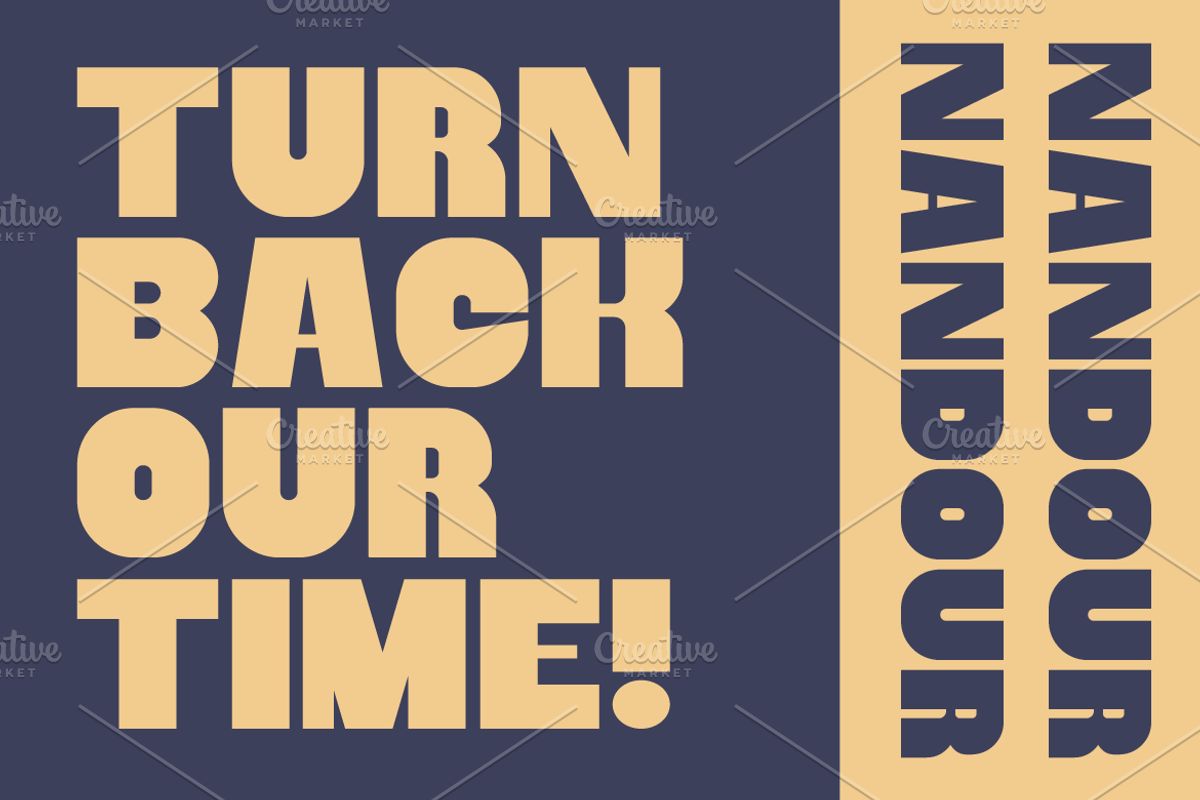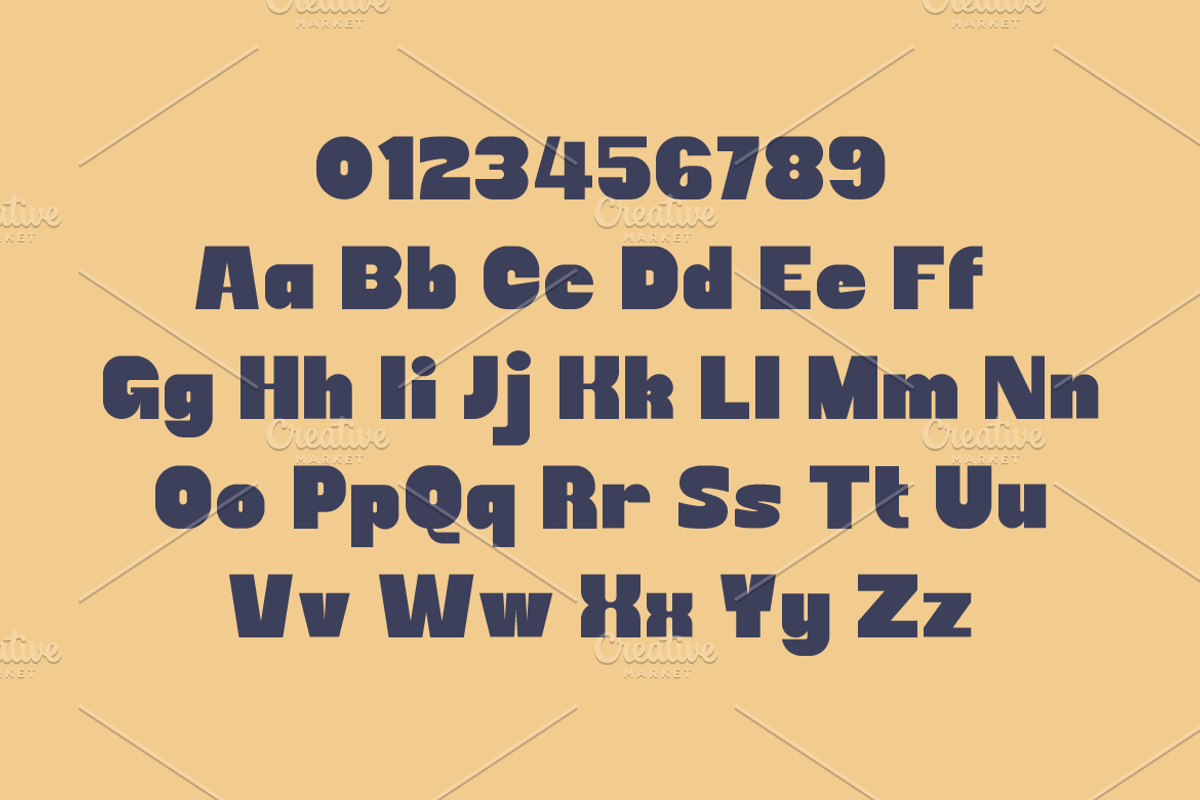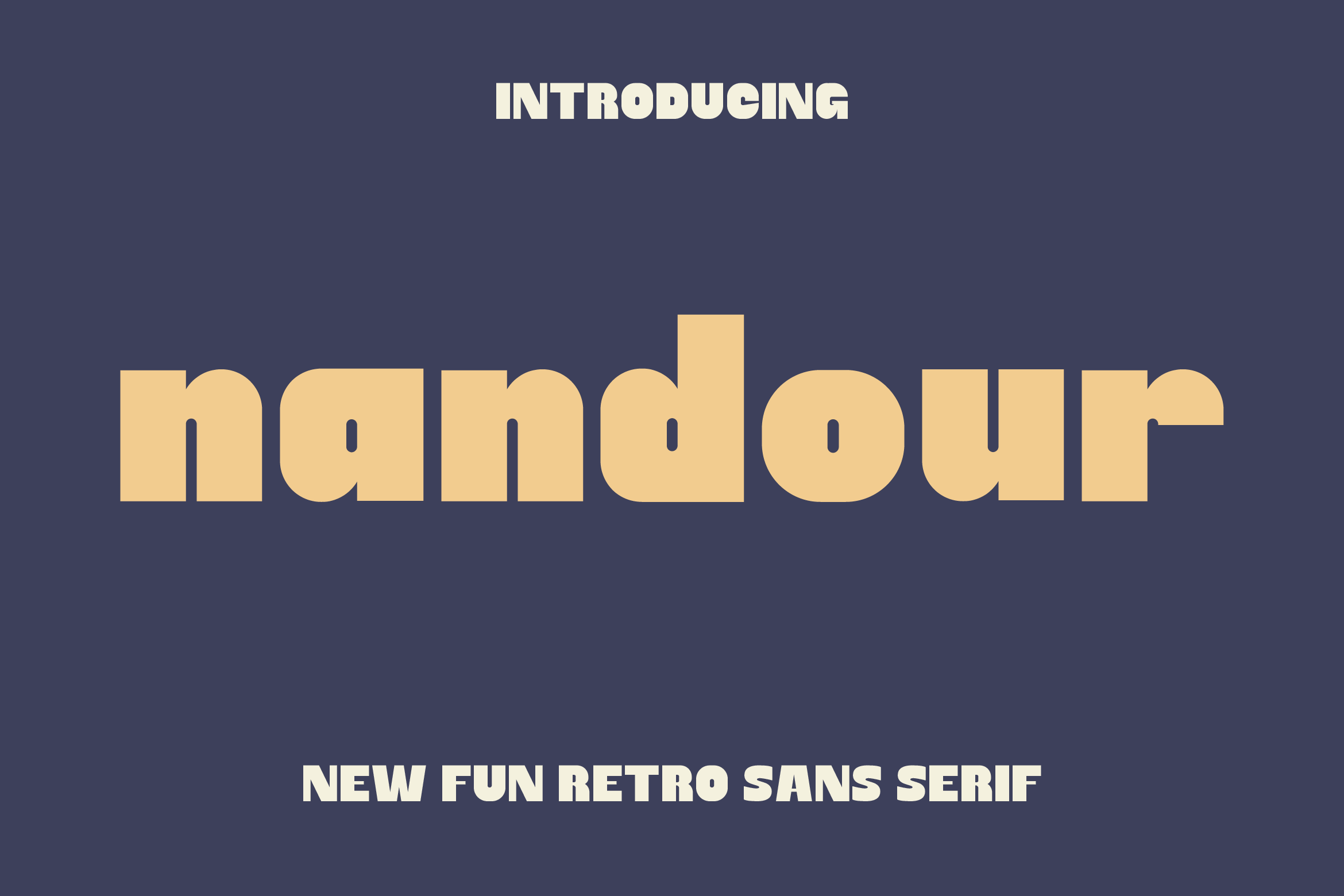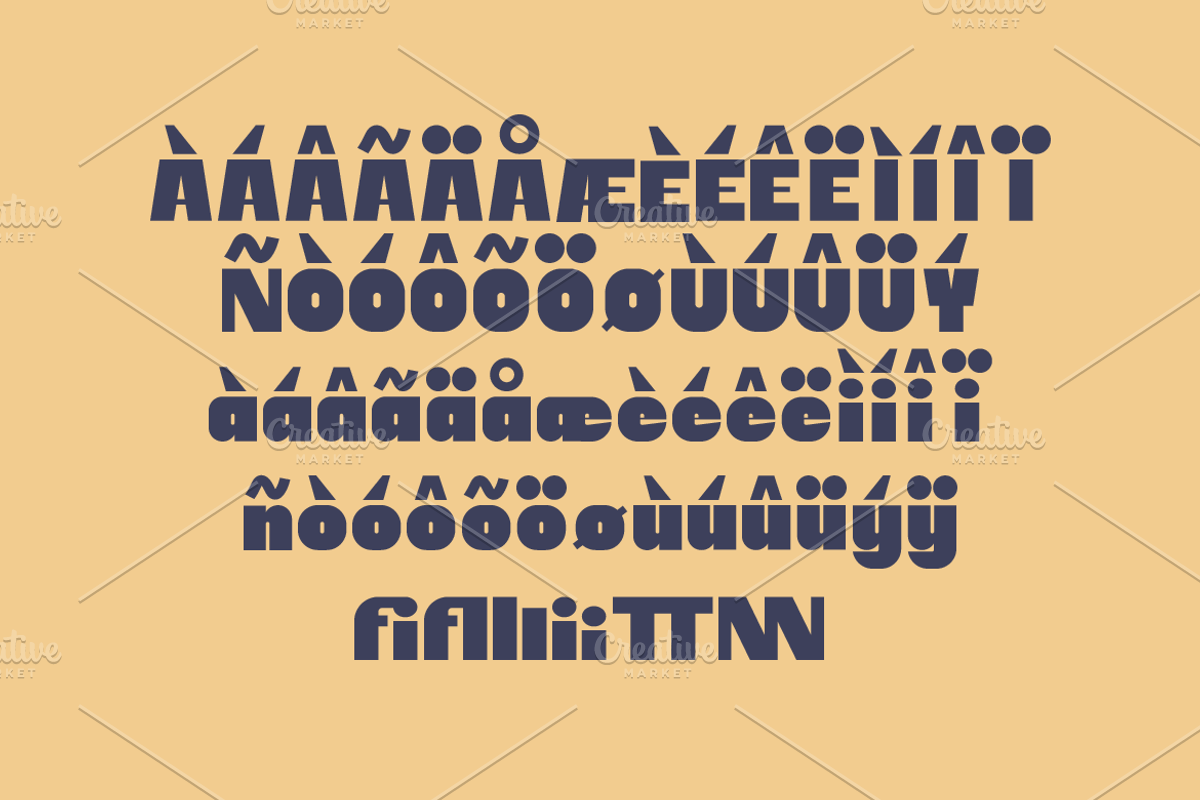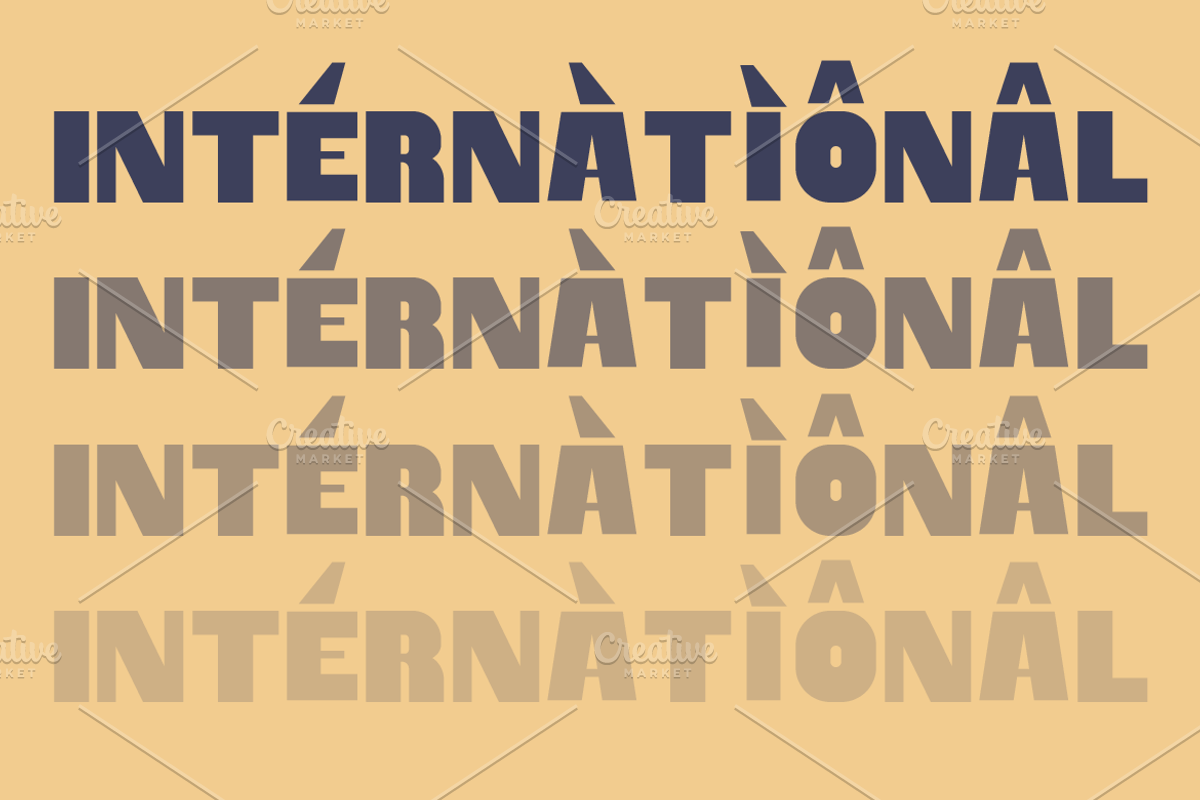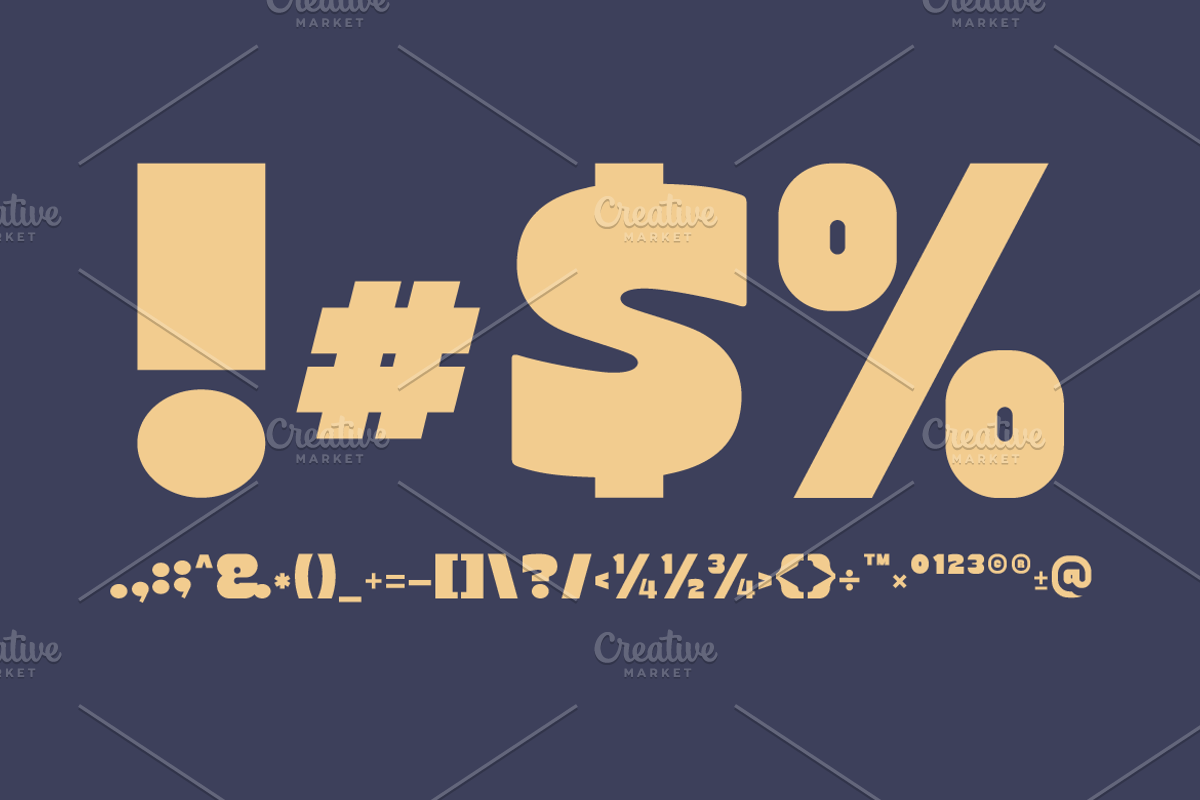
Nandour Fun Pop Sans Font
Nandour is a fun bold sans serif font by Iwan Alwan, designed to bring energy and playfulness to your projects. Its chunky, rounded letterforms are perfect for eye-catching headlines, posters, and playful branding. With multilingual support, ligatures, and alternates, Nandour combines boldness with a lively, vibrant aesthetic, making it ideal for designs that need a cheerful and dynamic touch.